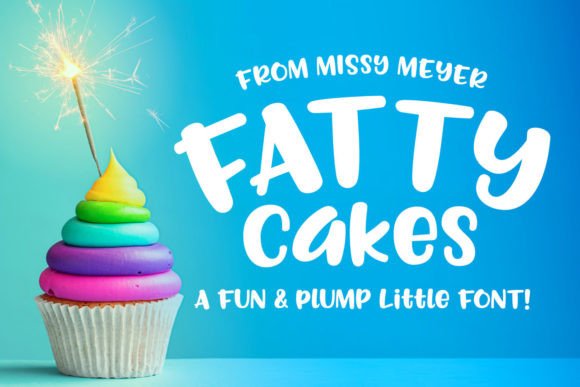
Introducing Fattycakes Font: A Cute, Chubby, and Plump Typography Experience
Are you tired of using the same old fonts that seem to blend in with every design project? Look no further than Fattycakes Font, a delightful and charming typeface that’s sure to add a touch of whimsy to your creative endeavors. In this article, we’ll dive into the world of Fattycakes, exploring its unique features, benefits, and what makes it an excellent addition to your font collection.
A Smooth and Craft-Friendly Font
Fattycakes Font is a carefully crafted typeface that takes inspiration from the distressed texture of Rough Puff font. However, unlike its predecessor, Fattycakes boasts a much smoother and more refined aesthetic, making it perfect for craft-friendly projects. The font’s design is characterized by its squat and wide structure, setting it apart from traditional fonts that tend to be taller and narrower.
One of the standout features of Fattycakes is its unique approach to lettering. The lowercase letters are the same height as the uppercase letters, allowing you to mix and match cases with ease. This versatility makes it an excellent choice for a wide range of design projects, from playful posters to charming invitations.
Two Font Versions: Smooth and Rough
Fattycakes Font comes in two distinct versions: Smooth and Rough. The Smooth version has been meticulously adjusted to provide a sleek and refined finish. Every point, line, and curve has been carefully tweaked to create a seamless and polished look.
On the other hand, the Rough version of Fattycakes retains the original, distressed texture of the imported scans. This version features a bumpy, wobbly aesthetic that’s perfect for designers looking to add a touch of character to their work. Both versions are fully spaced and kerned, with over 200 accented characters included for language support.
Rough Puff Font: A Bonus Addition
As a special bonus, the Fattycakes Font download includes Rough Puff font, the original inspiration for Fattycakes. This allows you to enjoy the whole family of fonts and experiment with different styles to find the perfect fit for your design project.
- Uppercase A-Z, lowercase a-z, numbers 0-9
- Standard punctuation marks, including special characters like the copyright symbol
- 200 accented characters in each font for language support
Why Choose Fattycakes Font?
So, what makes Fattycakes Font an excellent choice for designers and crafters? Here are just a few benefits:
- Unique aesthetic: Fattycakes Font boasts a charming, chubby, and plump design that’s sure to stand out in any design project.
- Versatility: With both Smooth and Rough versions, you can experiment with different styles to find the perfect fit for your project.
- Language support: With over 200 accented characters included, Fattycakes Font is perfect for projects that require language support.
How to Use Fattycakes Font in Your Design Projects
Fattycakes Font is perfect for a wide range of design projects, including:
- Playful posters and flyers
- Charming invitations and greeting cards
- Crafting and DIY projects
- Social media graphics and blog posts
- Branding and packaging design
Whether you’re a professional designer or a crafty DIY enthusiast, Fattycakes Font is an excellent addition to your font collection.
In conclusion, Fattycakes Font is a delightful and charming typeface that’s sure to add a touch of whimsy to your design projects. With its unique aesthetic, versatility, and language support, it’s an excellent choice for designers and crafters alike. So why not give Fattycakes Font a try and see how it can elevate your design projects?